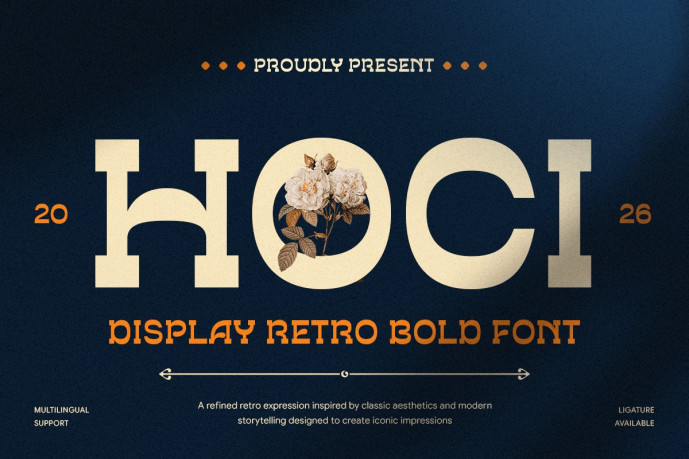
Hoci – Display Retro Slab Serif Font
Hoci – Display Retro Slab Serif Font Hoci is a display retro slab serif font designed to capture timeless character with a bold vintage aesthetic. Featuring sturdy slab serifs, classic letterforms, and a nostalgic display style, Hoci is perfect for logos, posters, packaging, signage, editorial layouts, and retro-inspired creative projects.
Blending classic slab serif typography with a modern retro approach, Hoci creates a distinctive and memorable visual identity. Its bold construction ensures excellent readability while maintaining an authentic vintage appearance, making it ideal for cafés, beverage brands, artisan products, music events, and heritage-inspired branding.
Hoci – Display Retro Slab Serif Font Features:
Bold slab serif style with retro vintage aesthetics
Classic letterforms with strong display character
Ideal for logos, posters, packaging, signage, and editorials
Uppercase, lowercase, numerals, and punctuation included
Excellent readability with timeless visual appeal
Perfect for artisan brands, cafés, events, and nostalgic branding
Bring vintage charm to your designs with Hoci – the retro slab serif font crafted for bold and timeless visual storytelling.